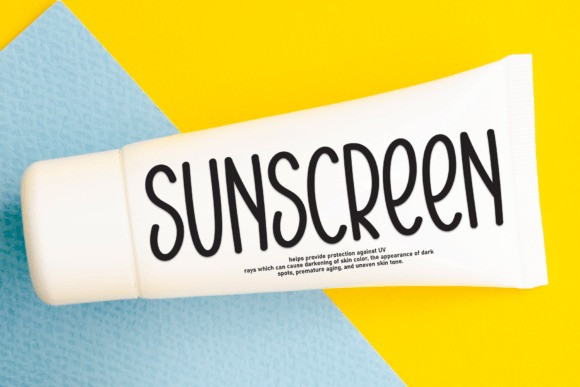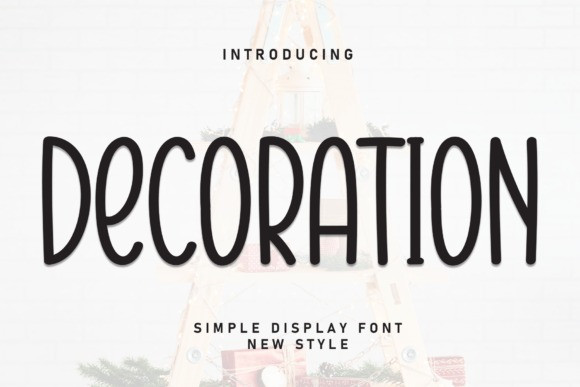
Decoration Playful Font is a straightforward and versatile display font that adds a touch of style to your projects. With clean lines and a simple design, this font is perfect for making your text stand out without overwhelming the overall aesthetic. Whether you’re creating invitations, headers, or any other design element, Decoration’s simplicity ensures a classic and timeless appeal. Elevate your typography with this easy-to-use font and effortlessly enhance the visual appeal of your projects.